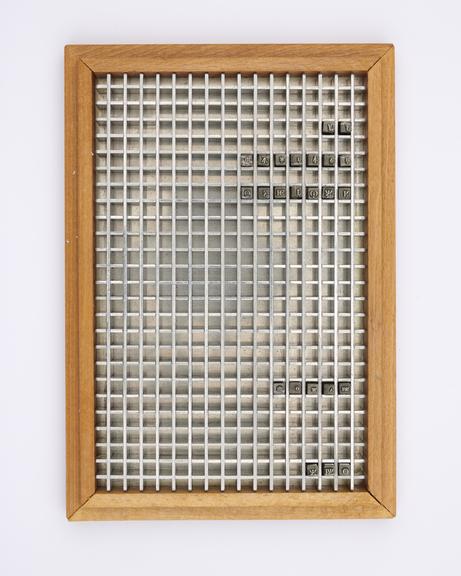
0.2 inch composition punches for Baskerville (typeface series number: 169)
0.2 inch composition punches for Baskerville (typeface series number: 169), font size 10. The box is marked with suffix RUSS meaning Russian. In an original wooden box. Manufactured by Monotype Corporation.
A Monotype punch is made by tracing a pattern on a vertical pantograph machine. It is an engraved piece of hardened steel of a reverse-reading type character (letter, numeral or ornament) in relief from which the matrices are made. After cutting, the face of the punch was ground to the correct measurements denoted on the relevant chart. The punch was stamped into a piece of phosphor bronze that made a matrix from which type could be cast. Punches were made in standard sizes: 0.2" x 0.2", 0.4" x 0.4", 1" x 1", or 1" x 1.35". If a Monotype punch became damaged it could be replaced, identically, using the pattern.
A new look came to English type design with the typefaces of John Baskerville (1707–1775). Baskerville was an accomplished writing master and innovative printer from Birmingham, England. His typefaces are classified as Transitional: designs with some Old Face characteristics but also some that foreshadow the development of Modern faces. Baskerville’s letterforms were very wide and he was the first to move in the direction of vertical stress, which is why the type is considered to be the first of the Transitional romans in England. His printing is noted for the importance he attached to the quality of paper and presswork and for his imaginative handling of type in relation to space. Although Baskerville’s type influenced a few printers, most English printers continued to use Caslon, which is classified as an Old Face. Baskerville types were ‘rediscovered’ in 1917 and several revivals followed.
The Monotype Corporation cut the first sizes of Baskerville Series 169 in 1923. Its generous proportions make it one of the most handsome, as well as one of the most legible, of typefaces. The width of the letters counteracts the vertical pull of the stress, and the open counters and clean, crisp lines mean it prints well. The serifs are bracketed and cut off at the tips. Distinctive features in the design include the absence of a middle serif on the roman and italic capital ‘W’ and lowercase ‘w’. In the roman and italic ‘g’, the lower bowl is not closed, and the ear is curled.
The influence of handwriting is noticeable in the accompanying italic and it is narrower and lighter than the roman. The italic includes a number of fine semi-swash letters such as the capitals ‘J’, ‘N’ and ‘Z’ but there are plainer alternatives available too. There are two related faces, a bold and a semi-bold, each with italic.
Monotype produced Baskerville roman and italic in 20 sizes, from 6pt to 72pt between the years 1923 and 1963. Sales were very good for this exceptionally popular continuous text typeface.